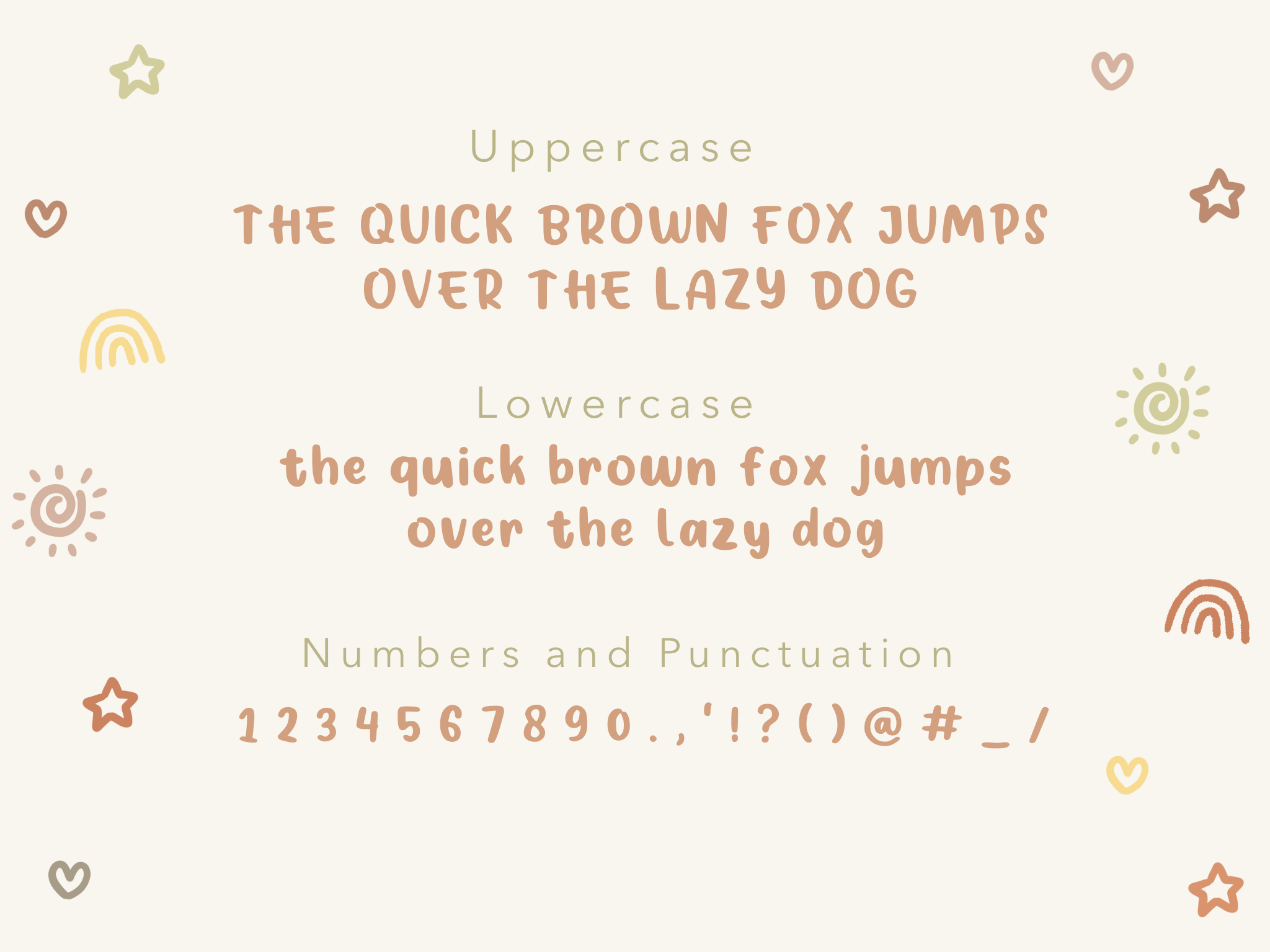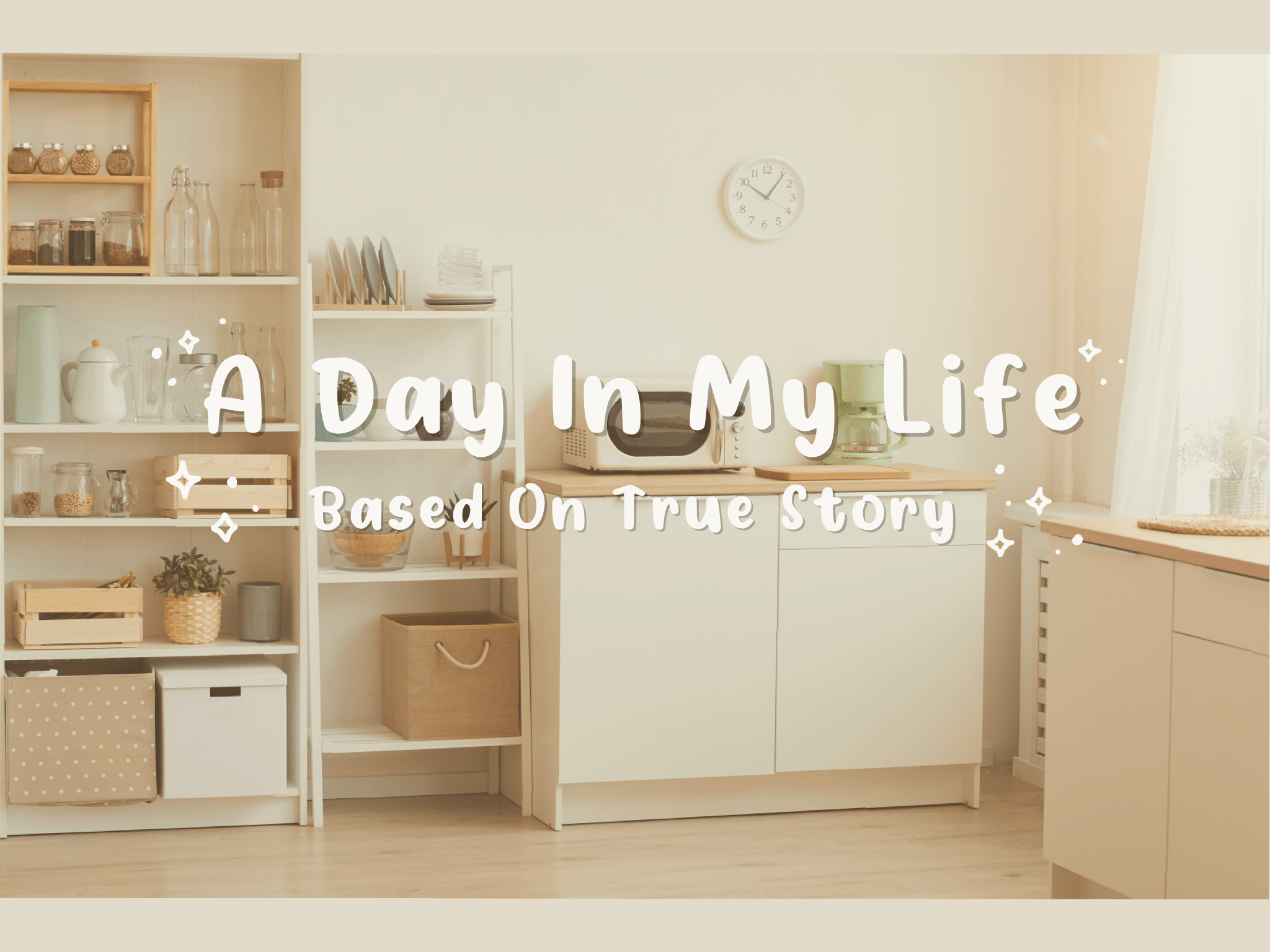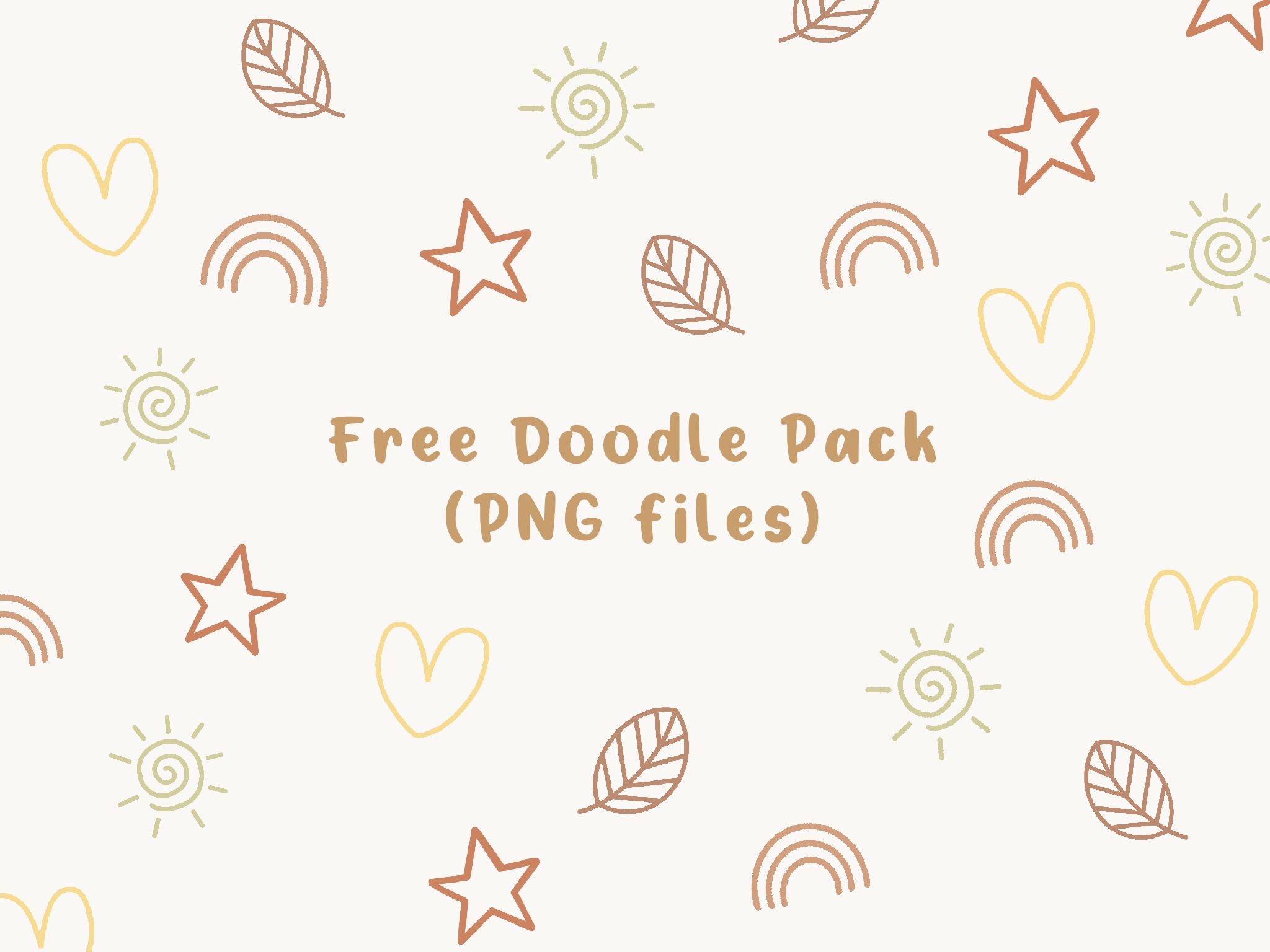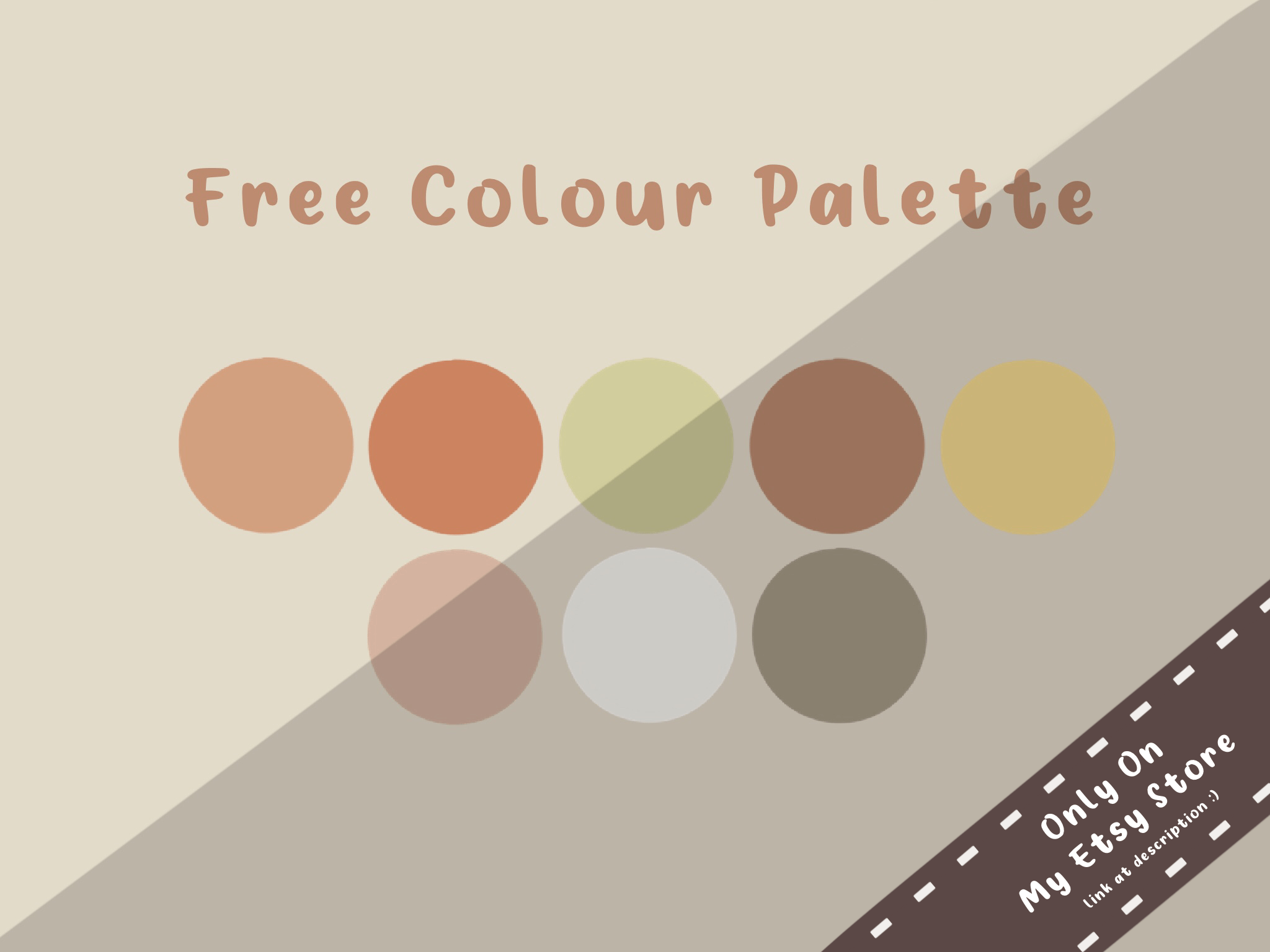
Sunday Morning Display Font
This is bold display font. This works great as both display or filler text. Use it for home decor, party invitations, logos, etc.! This is the perfect display font to have on hand.